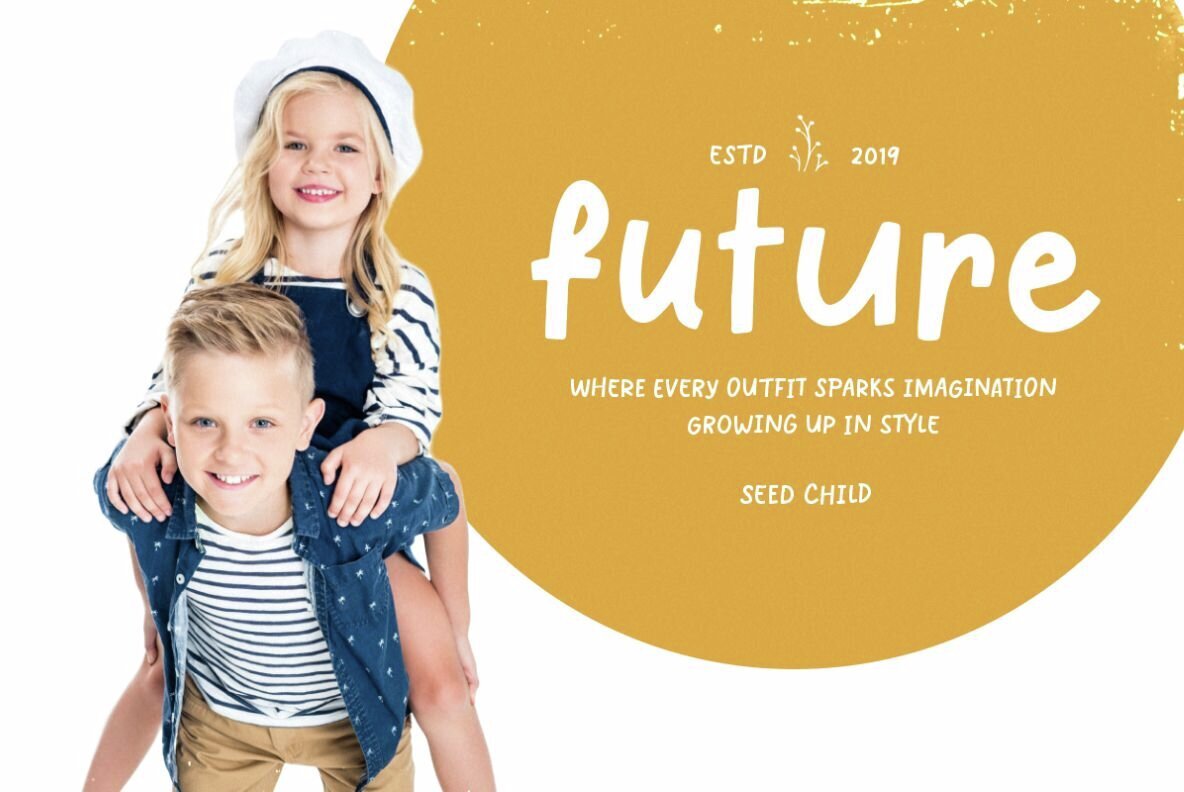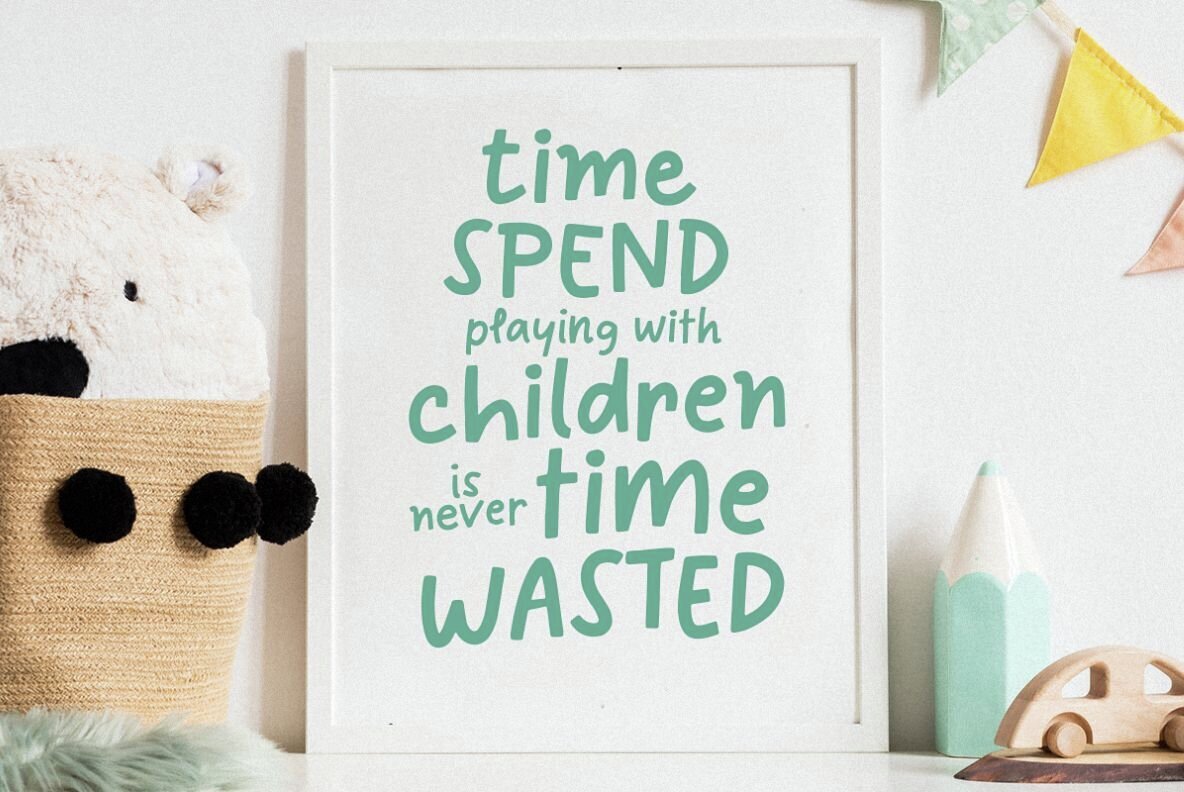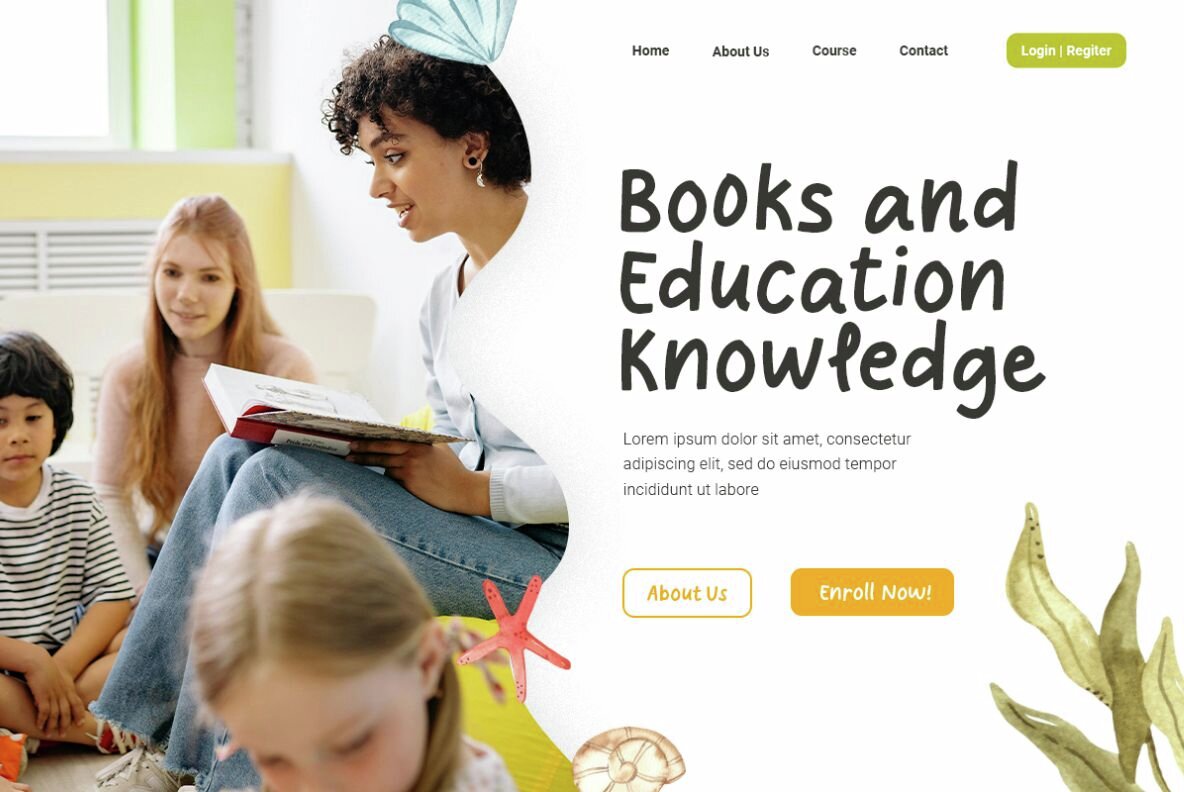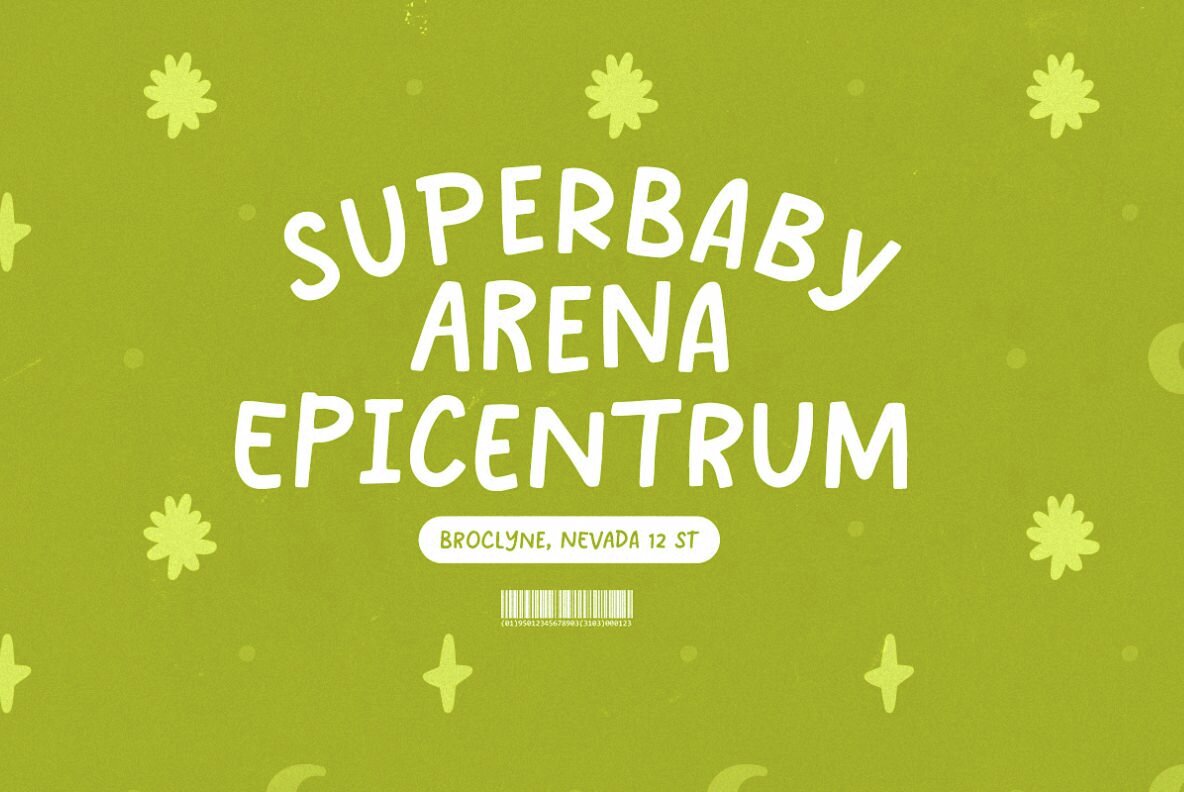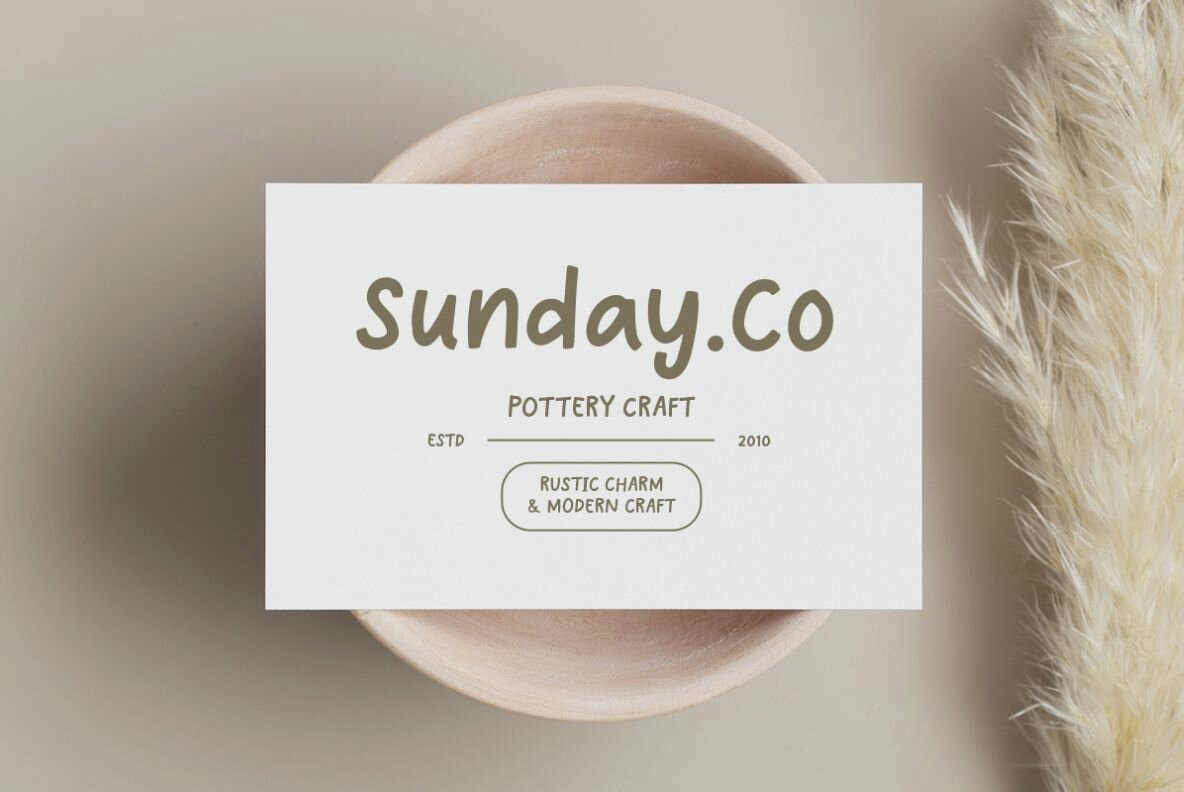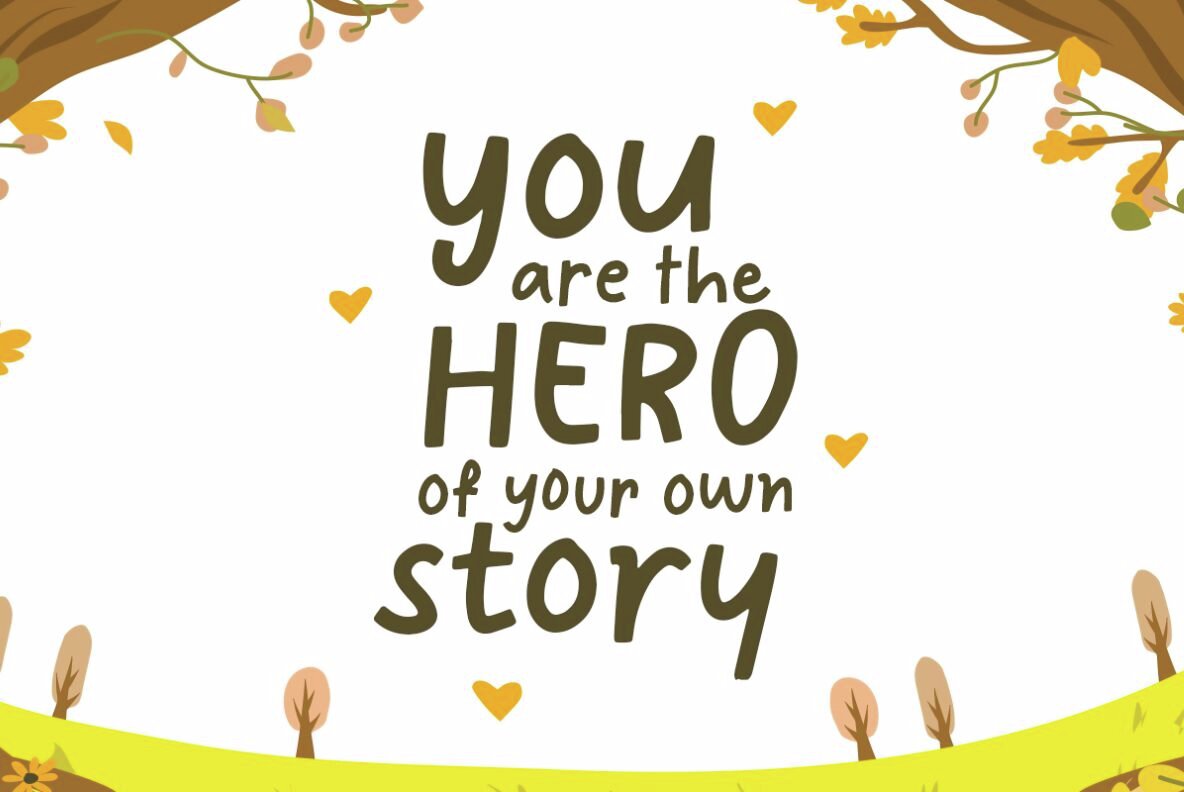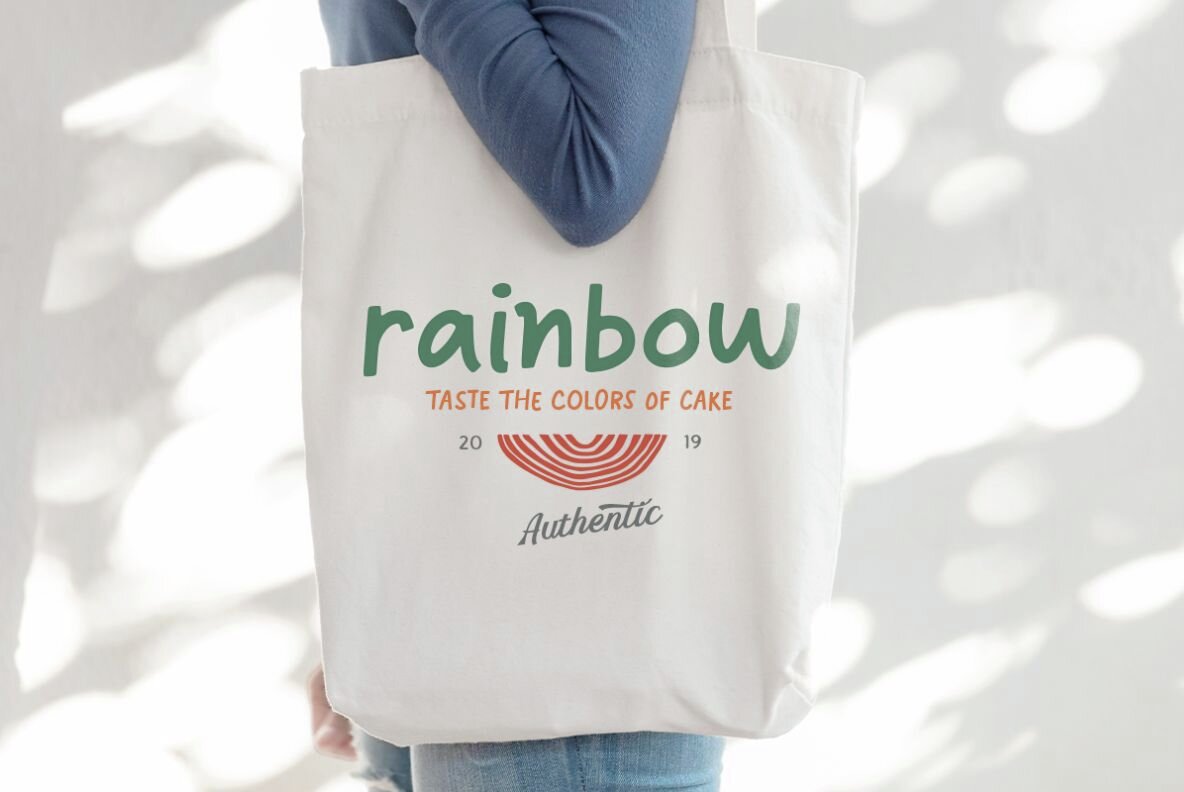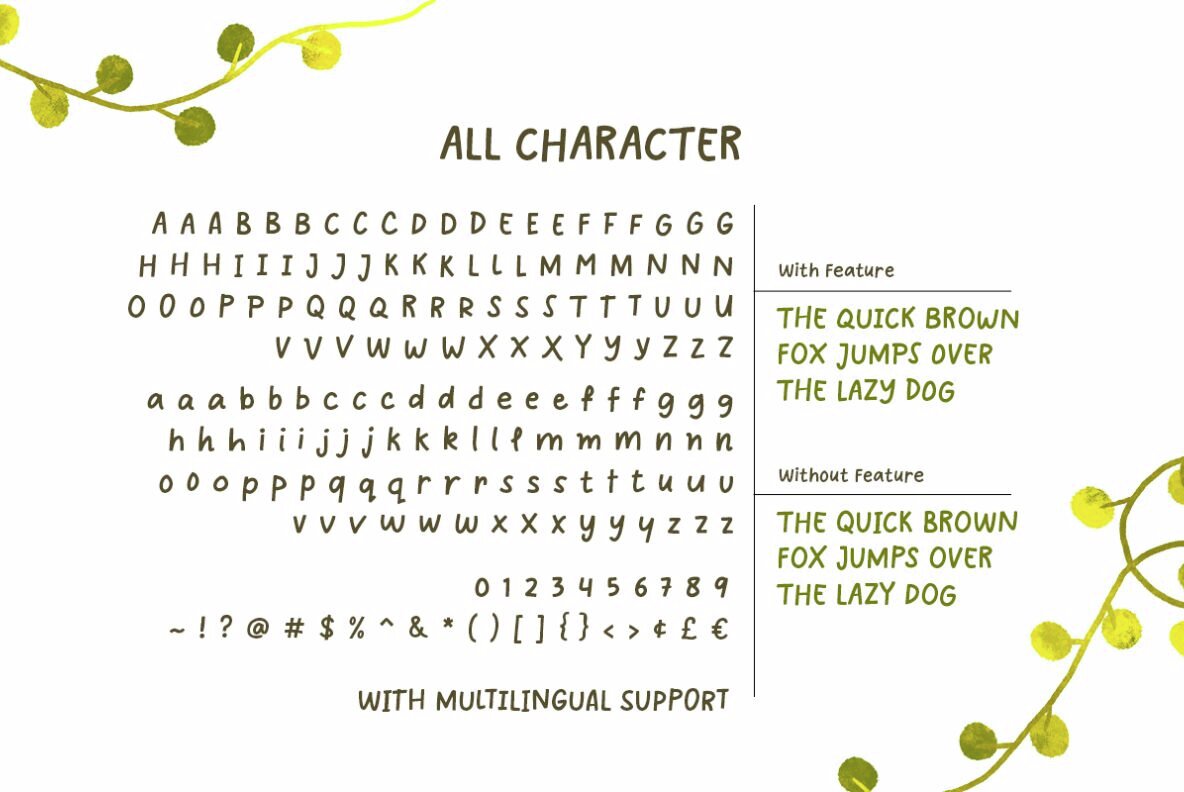
Choco Banana Font
Choco Banana Regular
Choco Banana is a charming handwritten font designed to add a playful touch to your projects. Its automatic alternates feature, accessible through the Contextual Alternates in OpenType features, enhances the natural flow and appearance of your text. Perfect for Adobe Photoshop or Illustrator, this capability ensures that your designs maintain an authentic handwritten feel without extra effort.
Furthermore, Choco Banana provides versatility with its multiple language support, making it an ideal choice for a wide array of global projects. Whether you're working on invitations, posters, or branding materials, this font's delightful style and functionality will bring a unique and personal touch to your designs. Enhance your creativity with a font that combines aesthetics with technical finesse.